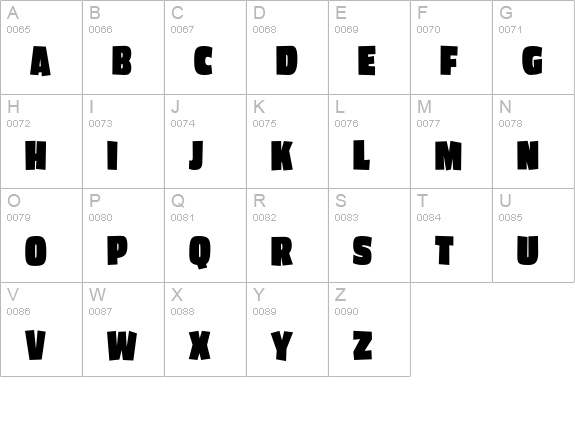
Asphalt-BlackCondensed Font Details
Asphalt-BlackCondensed is a sleek and modern display font that exudes a sense of sophistication and elegance. Its condensed design makes it perfect for creating eye-catching headlines and titles that demand attention. The sharp edges and bold strokes of Asphalt-BlackCondensed give it a strong and commanding presence on any design project. This versatile font is ideal for a wide range of applications, from branding and advertising to editorial design and digital media. Whether you're looking to create a striking logo, a powerful poster, or a sleek website, Asphalt-BlackCondensed is sure to make a bold statement. Best of all, Asphalt-BlackCondensed is available for free download at FontsMarket.com. This means you can start using this stunning font in your projects right away, without having to worry about any licensing fees. Don't miss out on the opportunity to add Asphalt-BlackCondensed to your font library and take your designs to the next level.